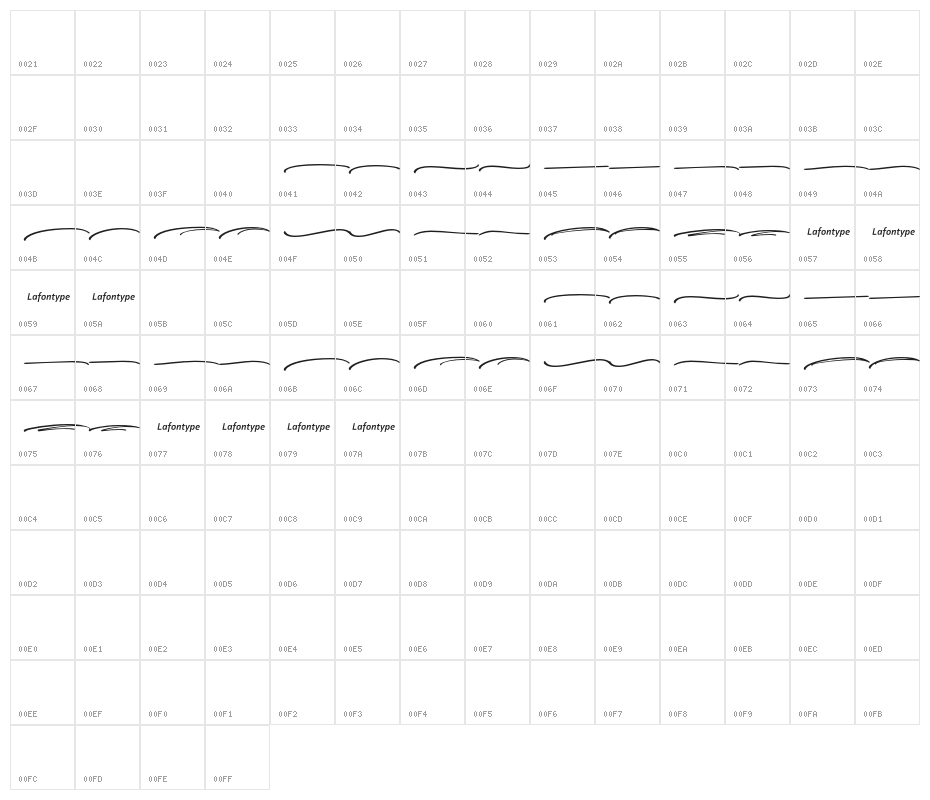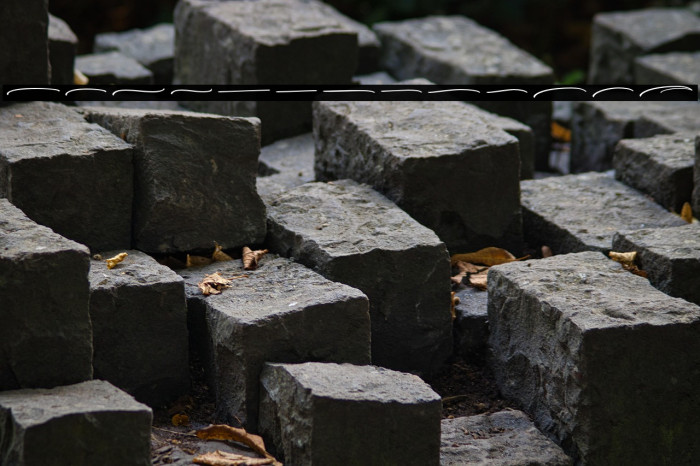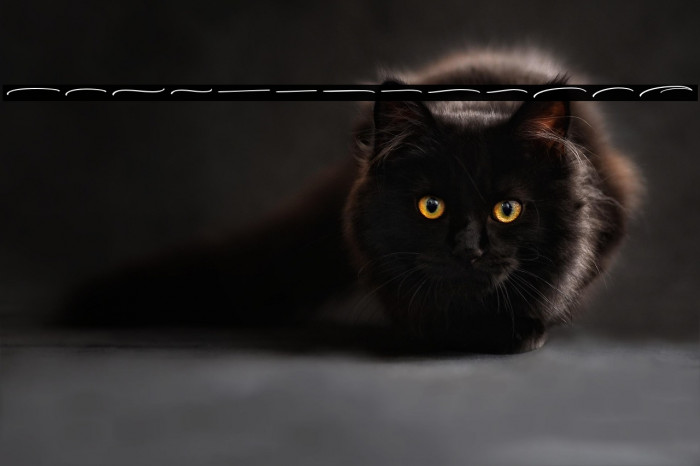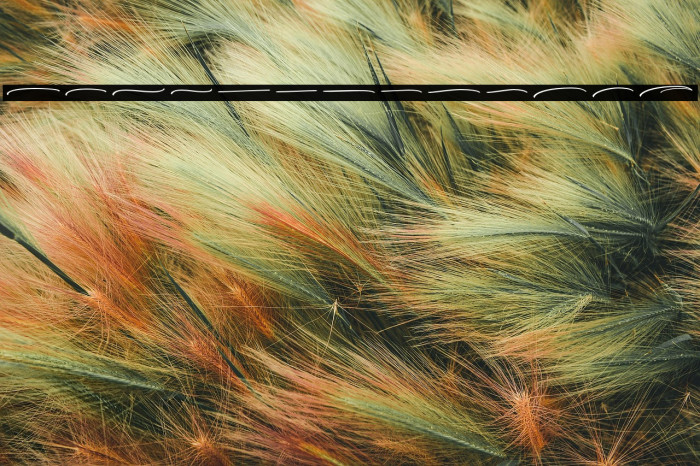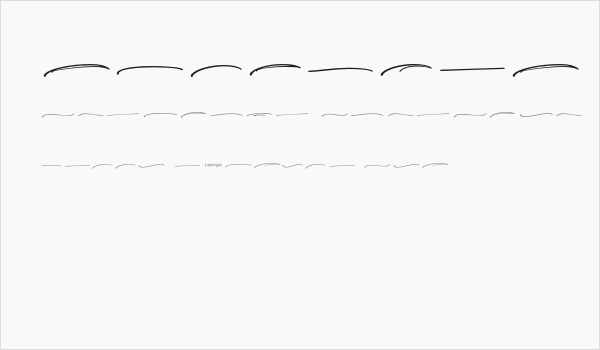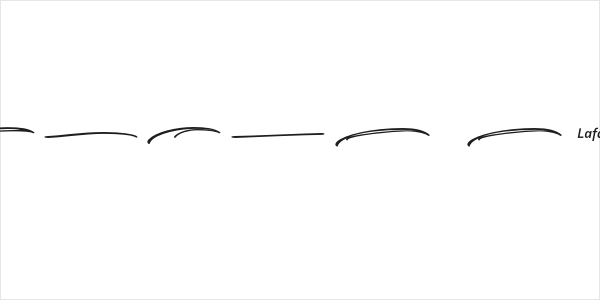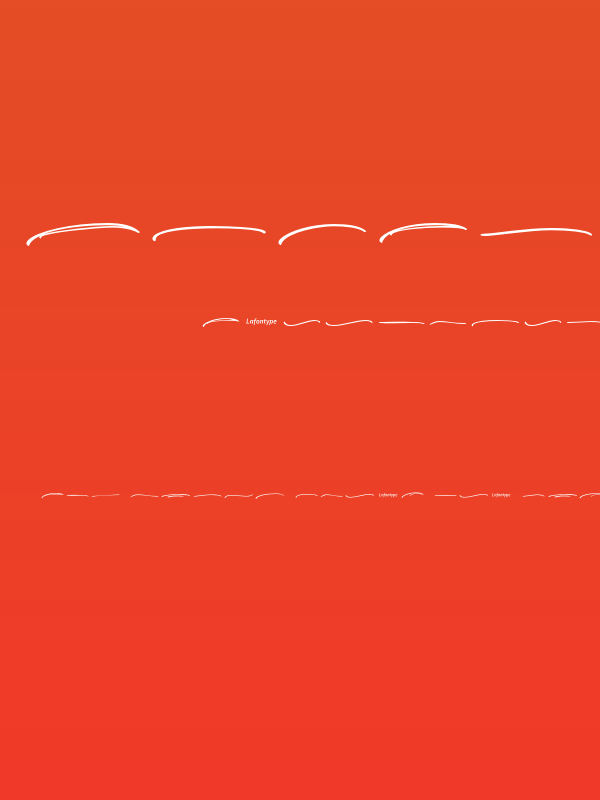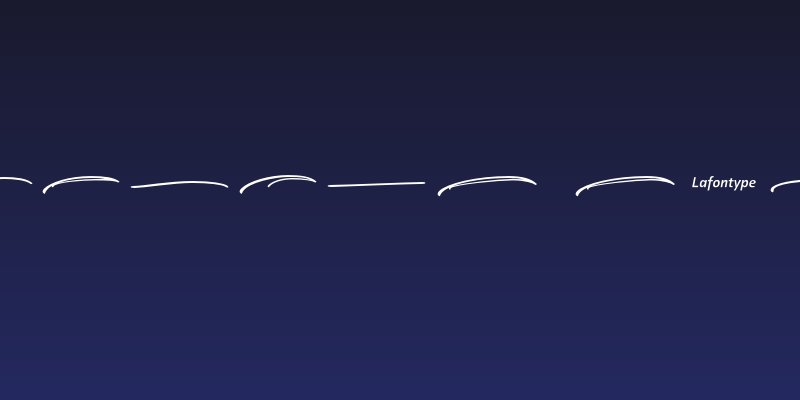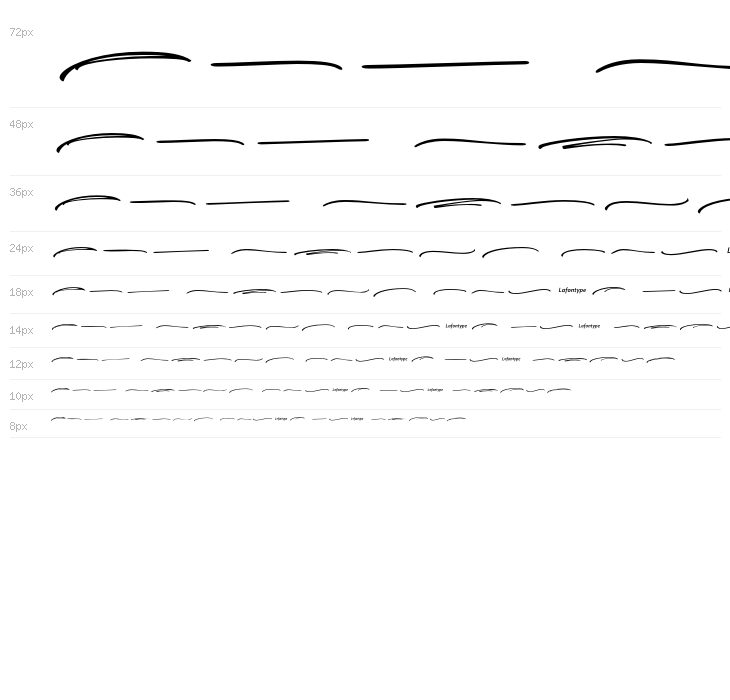
Saltines Swash Font
Saltines Swash Description
This font features a whimsical and decorative style with elegant swashes and flourishes. Each character is crafted with a playful yet sophisticated touch, making it ideal for creative and artistic projects. The strokes are smooth and flowing, giving a sense of movement and grace. The font's unique design elements make it stand out, adding a touch of personality and charm to any text. Its artistic flair is perfect for projects that require a distinctive and eye-catching typeface.
Use CaseLogos, Invitations, Artistic projects
Proposed ProjectsIdeal for invitations, greeting cards, branding, and artistic projects that require a unique and decorative touch.